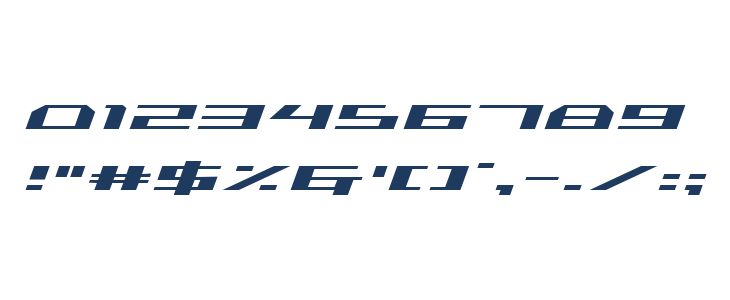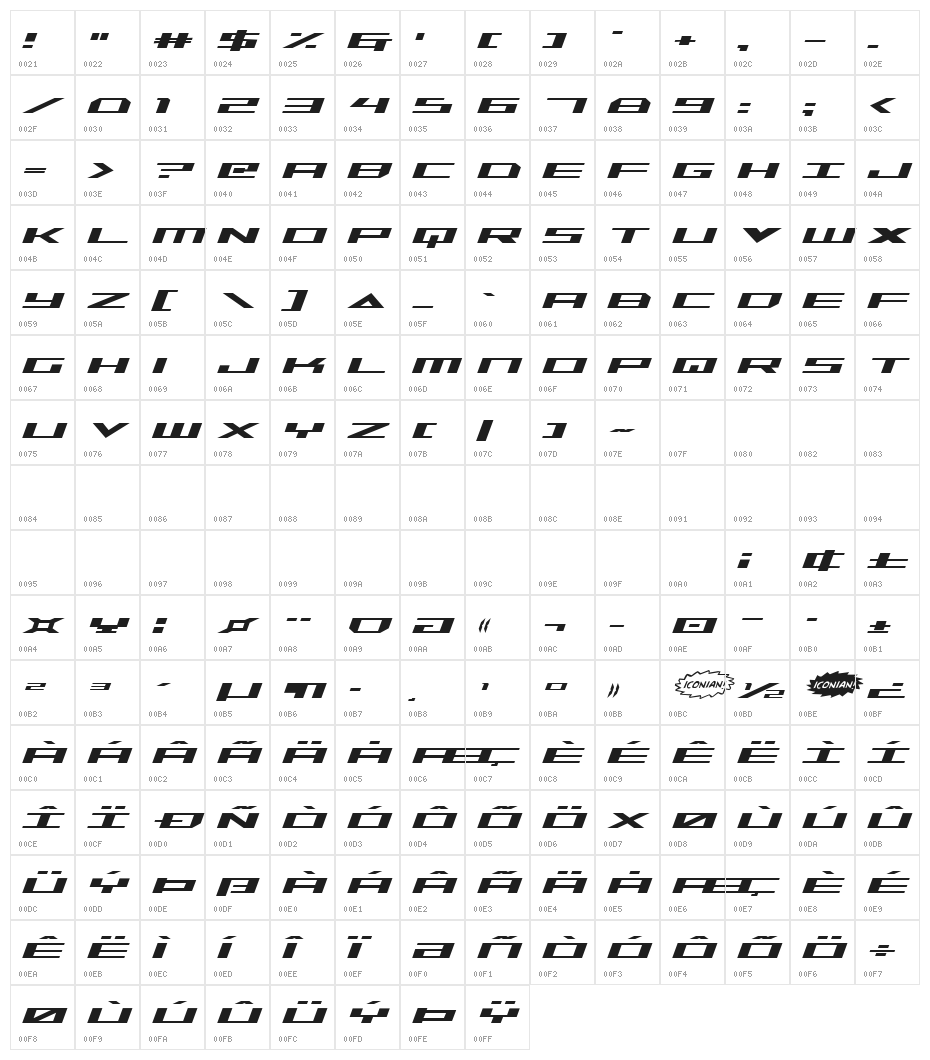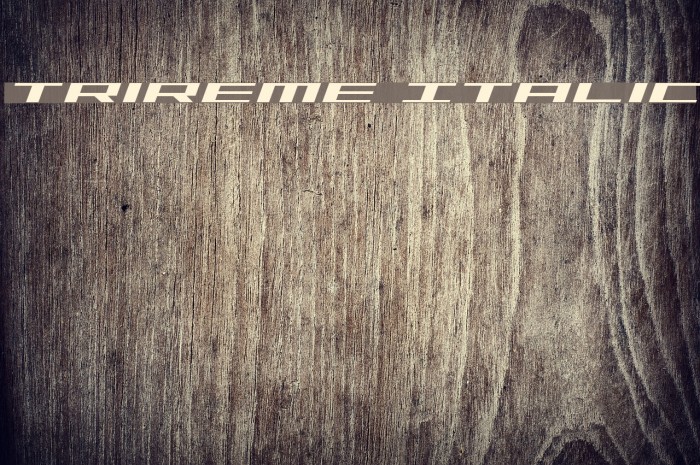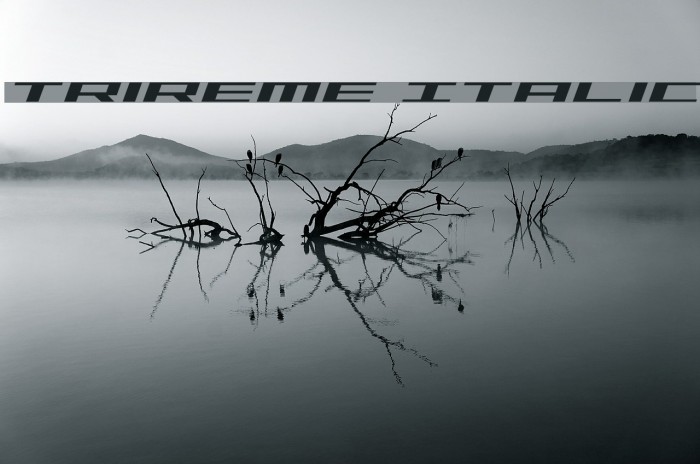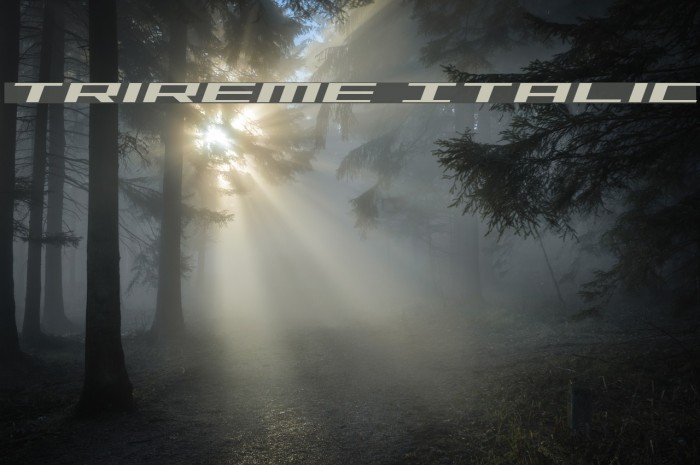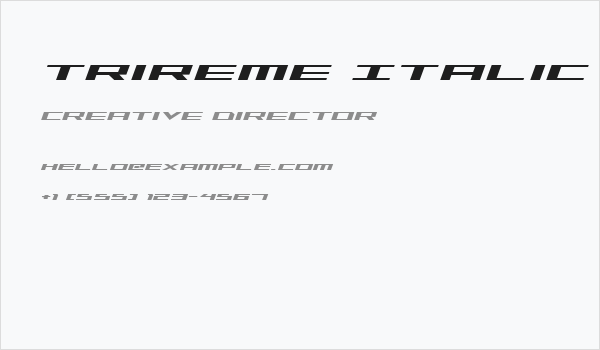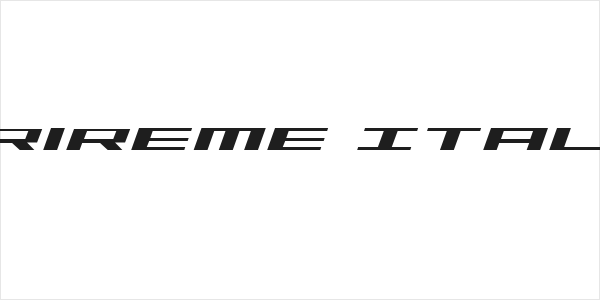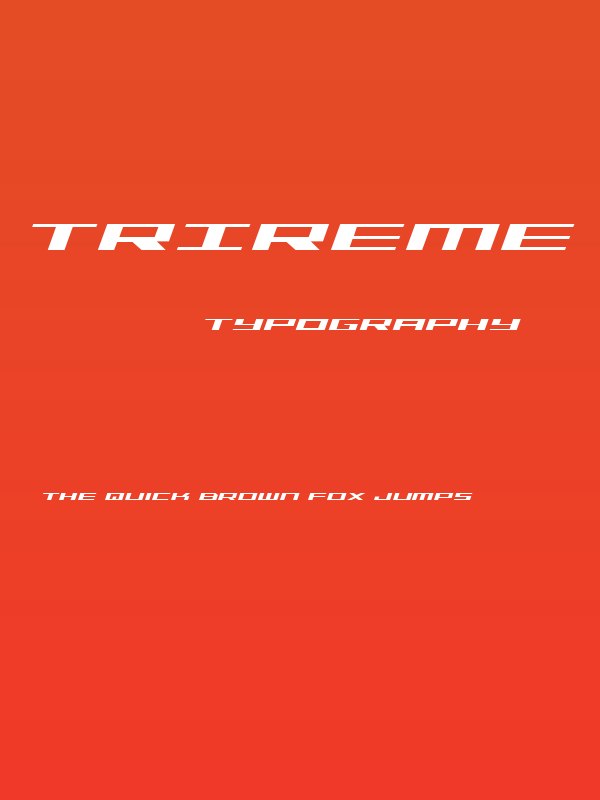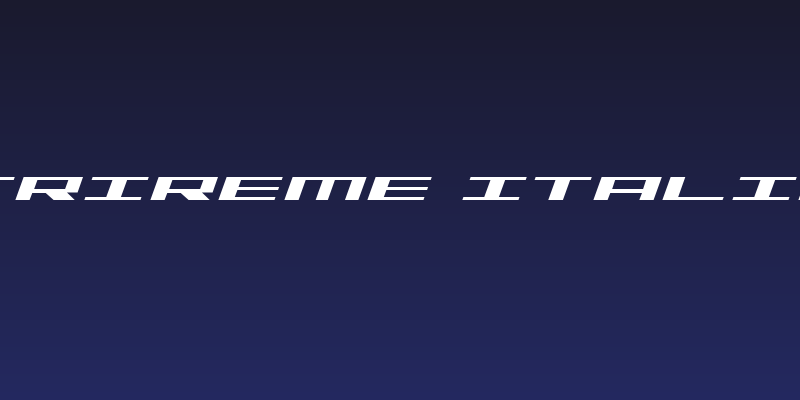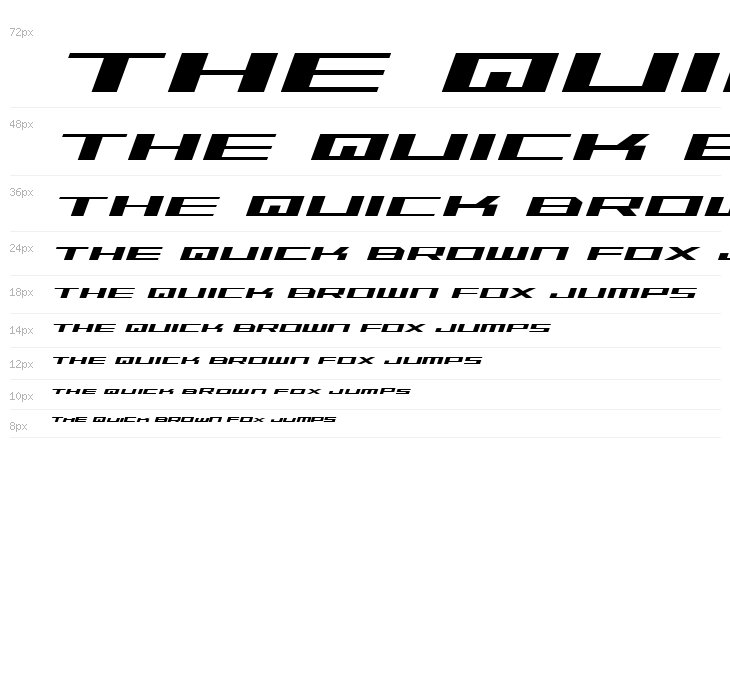
Trireme Italic Font
Trireme Italic Description
This font features a futuristic and angular design, characterized by sharp edges and a forward-leaning italic style. The letters are bold and geometric, with a distinct slant that gives a sense of motion and speed. The uppercase and lowercase characters maintain a consistent style, with the lowercase slightly smaller but equally dynamic. Numbers and special characters follow the same angular and italicized theme, ensuring uniformity across all glyphs. The overall appearance is modern and sleek, making it suitable for projects that require a cutting-edge and energetic look.
| Proposed Projects | Ideal for technology branding, sci-fi posters, video game titles, and dynamic advertising campaigns. |